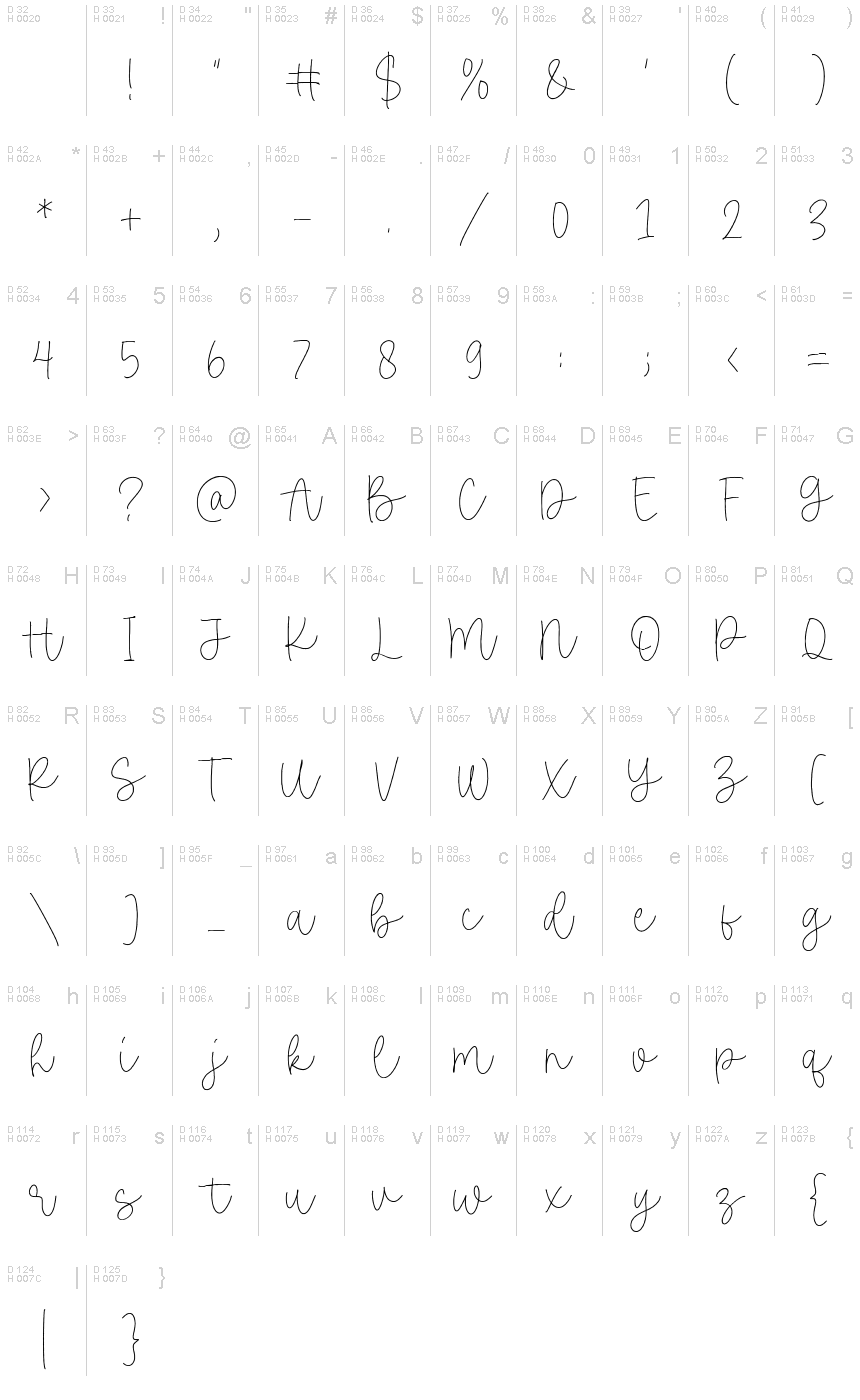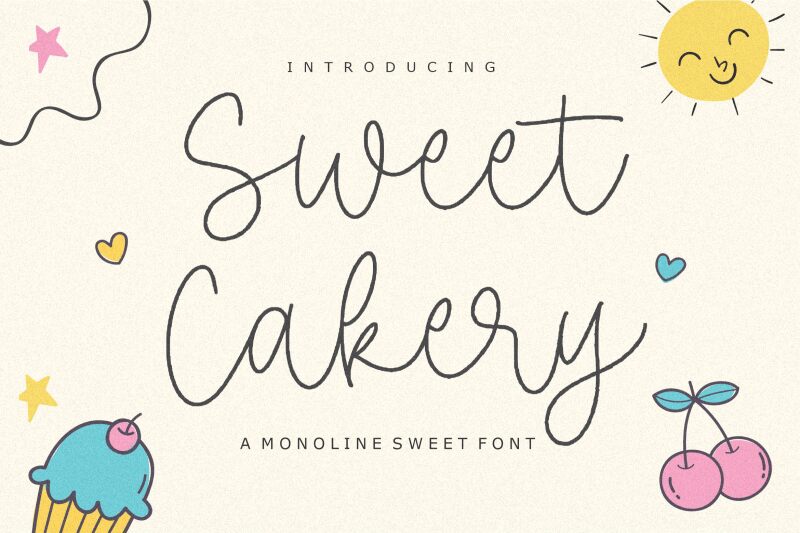
Sweet Cakery
Sweet Cakery font by Balpirick Studio charms with fluid motions, playful curves, and a rhythmic flow for handwriting enthusiasts. Its informality suits modern designs giving each project an individual identity as words switch between block letters and cursive lowercase ones throughout layouts. Sweet Cakery is the light manuscript typeface missing from your collection.
Sweet Cakery free handwritten font offers use in packaging designs for candy or baking products, candy wrappers, gift cards for children’s birthday invitations, drink branding needs like wine labels or brewery logos when elegant typography is required without sacrificing readability at smaller sizes.